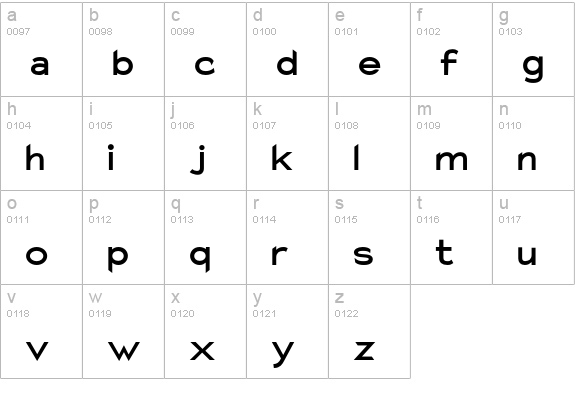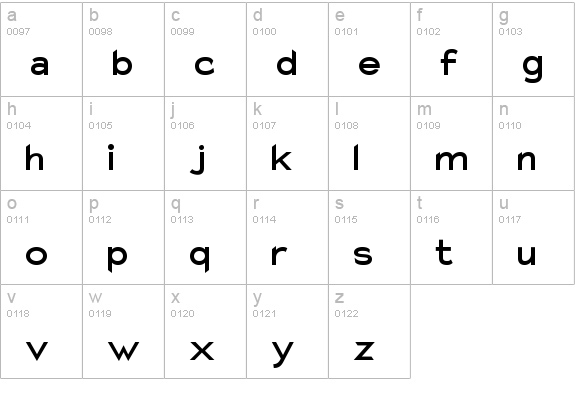
Charger ExtraBold Font Details
Charger ExtraBold is an extra-heavy, attention-grabbing variant in the Charger typeface family \xE2\x80\x94 well suited to high-impact headlines, posters, and bold branding.
Introducing Charger ExtraBold, a bold and powerful font that is sure to make a statement. With its strong and commanding presence, this font is perfect for headlines, logos, and any design project that needs to stand out from the crowd. Charger ExtraBold features thick and solid letterforms that exude confidence and strength. Its wide and bold strokes give each character a sense of stability and impact, making it ideal for titles and headlines that demand attention. Not only does Charger ExtraBold possess a commanding presence, but it also offers a touch of elegance and sophistication. The carefully crafted curves and angles give this font a sleek and polished appearance, making it versatile for a range of design styles. But what truly sets Charger ExtraBold apart is its availability. This font is not only visually striking but also freely available to download at FontsMarket.com. Yes, you read that right - this extraordinary font can be yours at no cost, allowing you to elevate your designs without breaking the bank. Whether you are a professional designer or a creative enthusiast, Charger ExtraBold will undoubtedly become your go-to font for creating impactful and memorable designs. Its bold and confident nature, combined with its availability as a free download, makes it a must-have in your font collection. So why wait? Head over to FontsMarket.com today and download Charger ExtraBold for free. Elevate your designs with this powerful and striking font, and make a lasting impression on your audience.